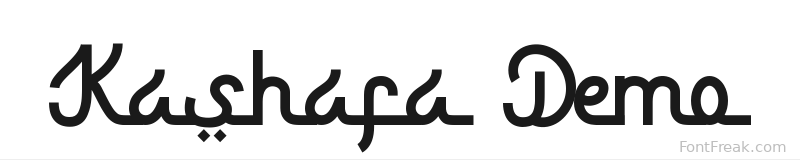
Kashafa Demo
About Kashafa Demo
Kashafa Demo by Noah Type is an intriguing display font that effortlessly blends modern aesthetics with a hint of artistic flair. This typeface falls into the decorative category, making it a striking option for various creative projects. Its unique letterforms feature rounded edges and playful curves, creating a sense of warmth and friendliness. The font displays a moderate stroke weight, offering a balanced contrast that enhances readability while retaining a whimsical character. The spacing between the letters is thoughtfully designed, allowing for legibility even at larger sizes, and the overall composition brings a lively energy to any text it adorns.
Kashafa Demo is best suited for specific use cases such as wedding invitations, where its charming style can convey elegance and joy. It also shines on movie posters, providing an engaging focal point that draws the viewer's eye. For restaurant menus, this font adds a touch of creativity, making the dining experience feel more inviting and unique. Additionally, it can enhance branding materials for small businesses looking to stand out, as well as social media graphics created by content creators seeking to capture attention.
Targeting graphic designers and small business owners, Kashafa Demo offers a fresh alternative to conventional typefaces. Its unique visual appeal makes it a go-to choice for anyone looking to add a personal touch to their projects. The Kashafa Demo font free download allows creatives to explore its potential without financial constraints, making it accessible for various applications. What truly sets this font apart is its ability to combine artistic expression with practical usability, ensuring that your designs not only look great but also effectively communicate your message.